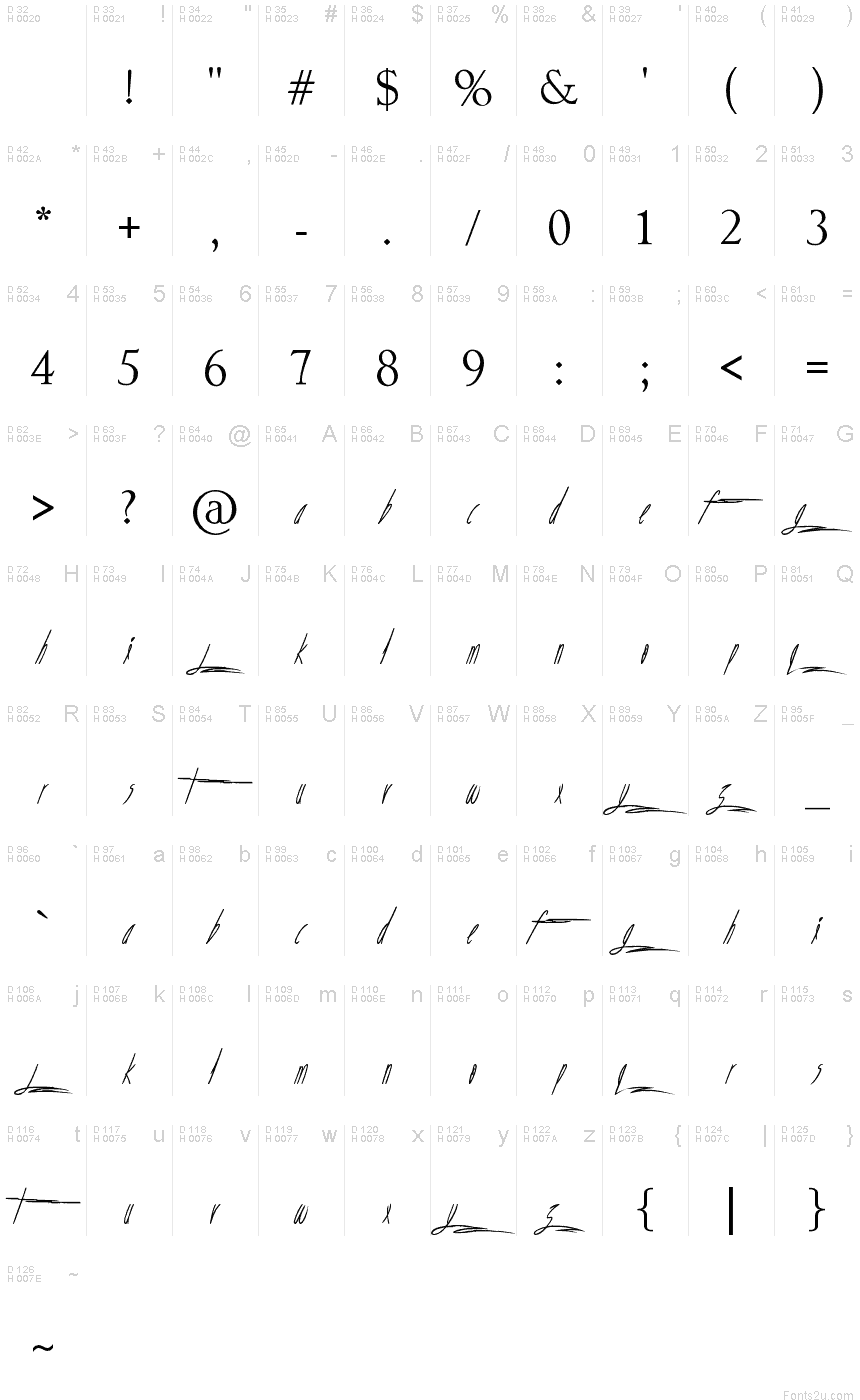
See you tomorrow bright and ear
See You Tomorrow Bright and Ear by TattooWoo is a free high-contrast calligraphic script with tall, tightly packed letters, a strong forward slant, and abrupt changes in stroke width. Its sweeping flourishes stretch far beyond the letter bodies.
Fashion labels and tattoo studios could use its sharp signature style across branding, product packaging, promotional posters, and album covers, all suited to lettering with this much speed and motion. It is especially convincing in a logo, where the extended strokes can turn a name into a compact emblem rather than separate, neutral text.